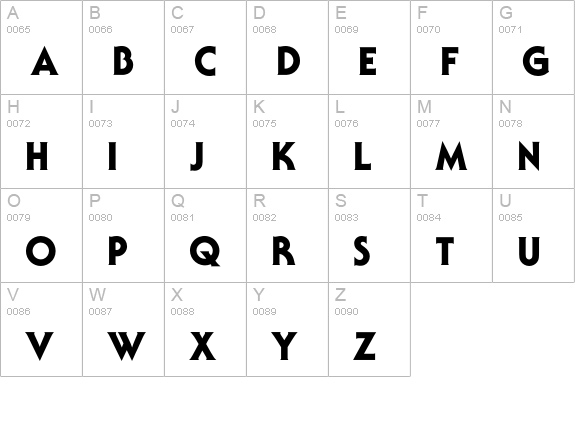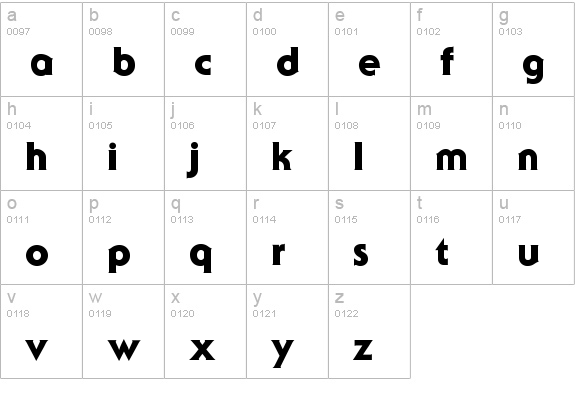
Serif Gothic Heavy Font Details
Serif Gothic Heavy is a heavy, high-impact variant in the Serif typeface family \xE2\x80\x94 well suited to high-impact headlines, posters, and display advertising.
Serif Gothic Heavy font, with its bold and commanding presence, exudes an air of sophistication and strength. Its carefully crafted strokes and sharp serifs create a modern yet timeless aesthetic that is both eye-catching and impactful. This font is perfect for headlines, posters, and any design project that requires a touch of bold elegance. What sets Serif Gothic Heavy font apart is not just its impeccable design, but also its accessibility. It is a font that can be freely downloaded at FontsMarket.com, allowing designers, creatives, and enthusiasts alike to effortlessly incorporate this stunning typeface into their work. With its availability at no cost, Serif Gothic Heavy font empowers users to explore their creativity without any limitations. Whether it's for print or digital media, Serif Gothic Heavy font delivers a powerful visual impact that demands attention. Its versatility ensures that it can be used in a variety of contexts, from branding and advertising to editorial design and beyond. The strong and confident nature of this font makes it an ideal choice for those seeking to make a statement and leave a lasting impression. In conclusion, Serif Gothic Heavy font combines the timeless elegance of serif typefaces with a bold and modern twist. Its availability as a free download at FontsMarket.com makes it a valuable asset for designers and creatives looking to elevate their projects. Embrace the power of Serif Gothic Heavy font and watch your designs come to life with style and authority.